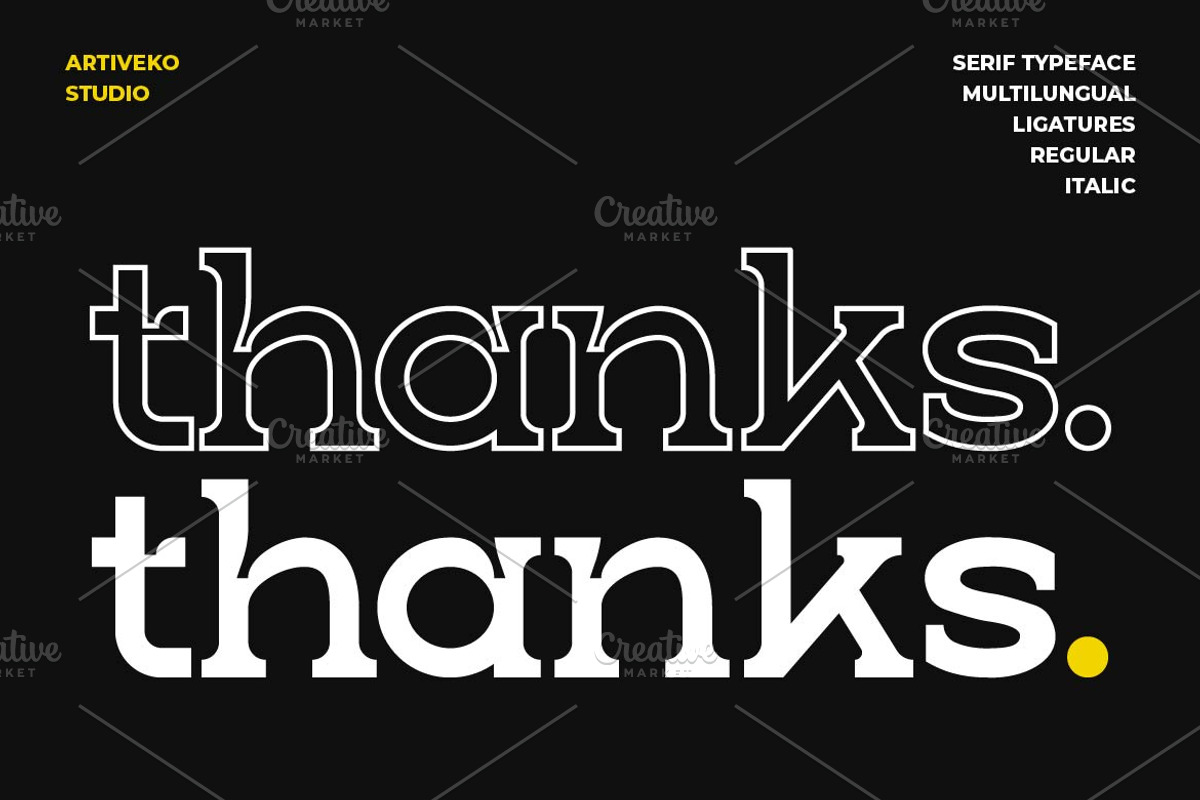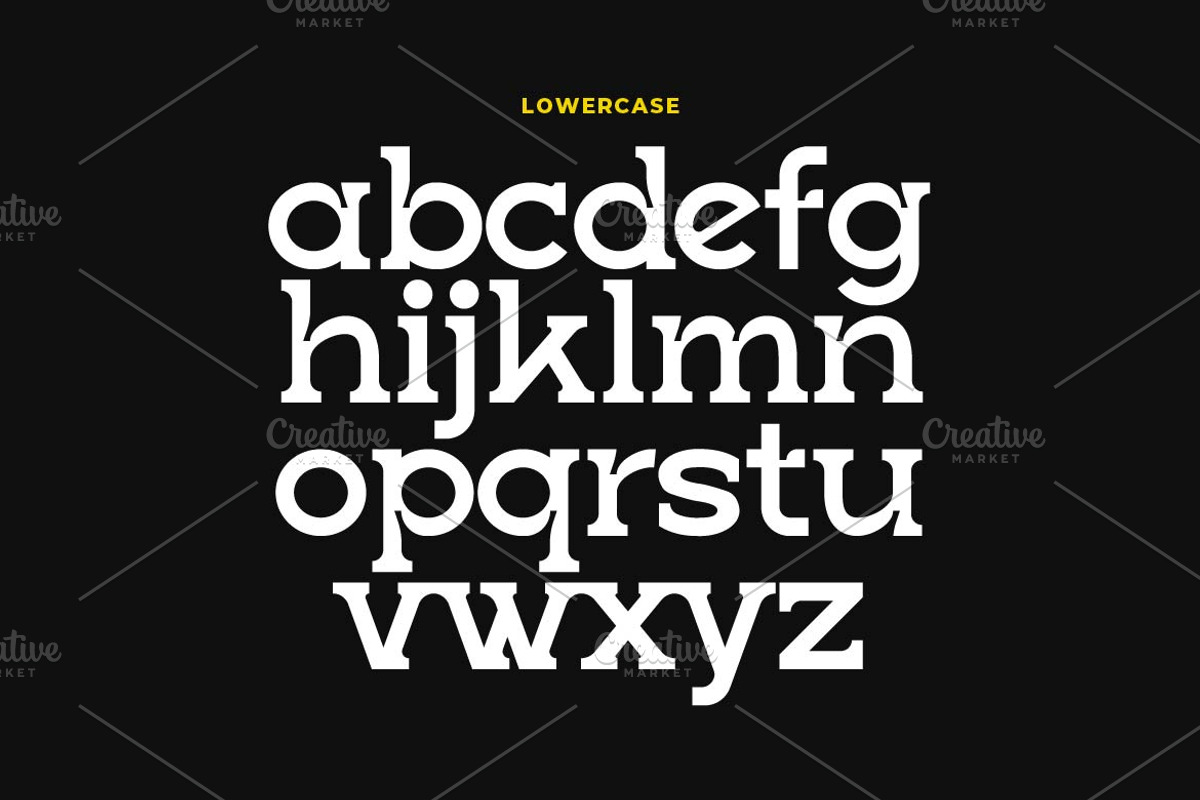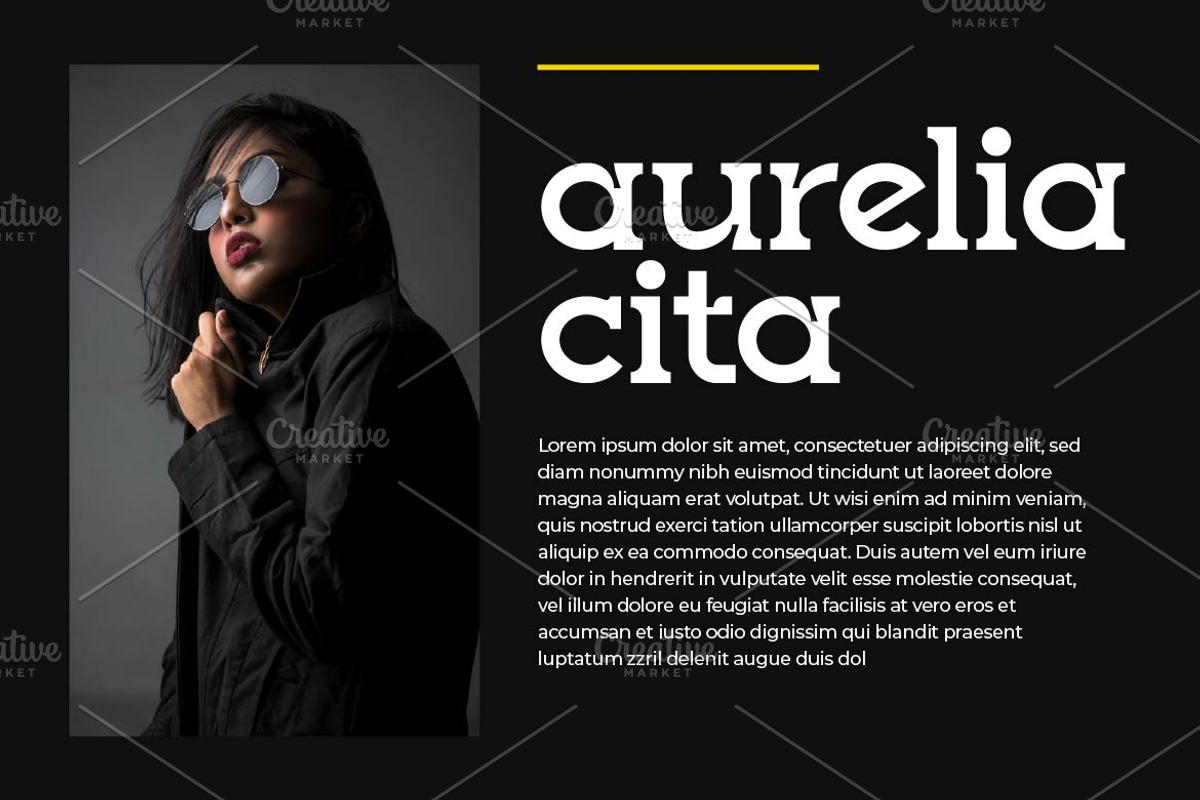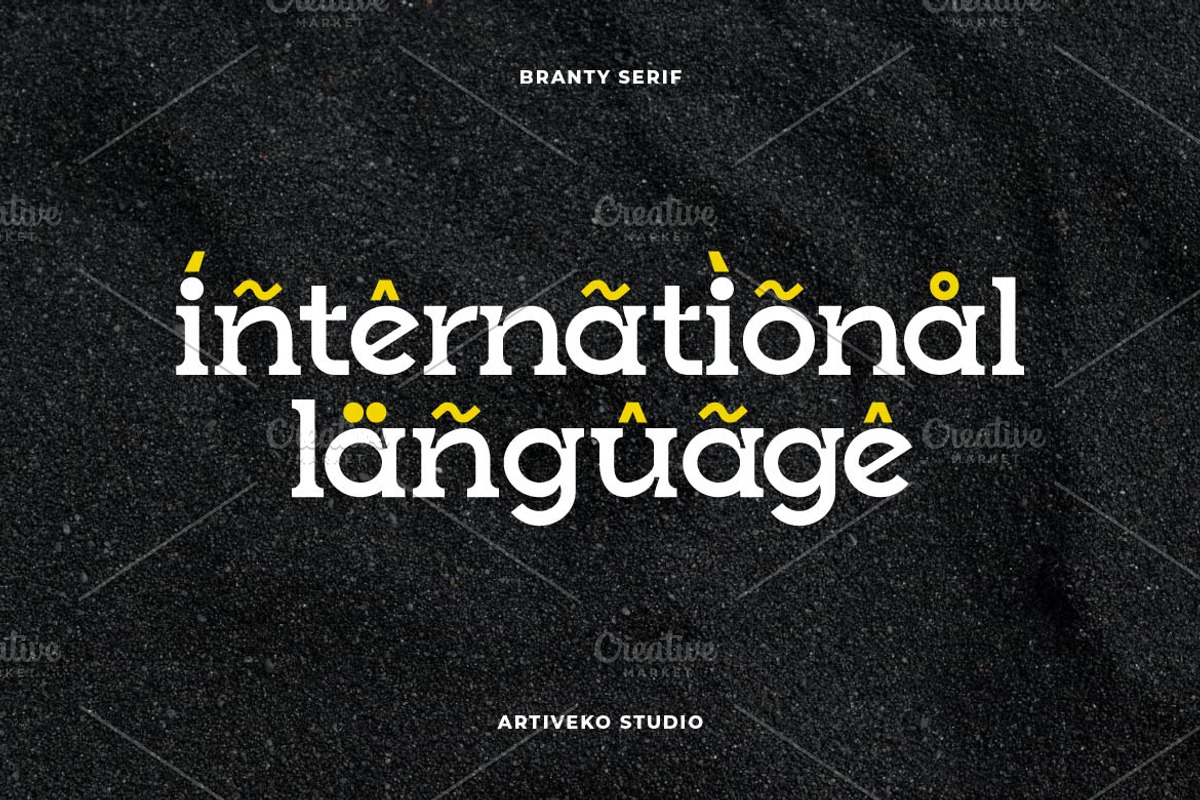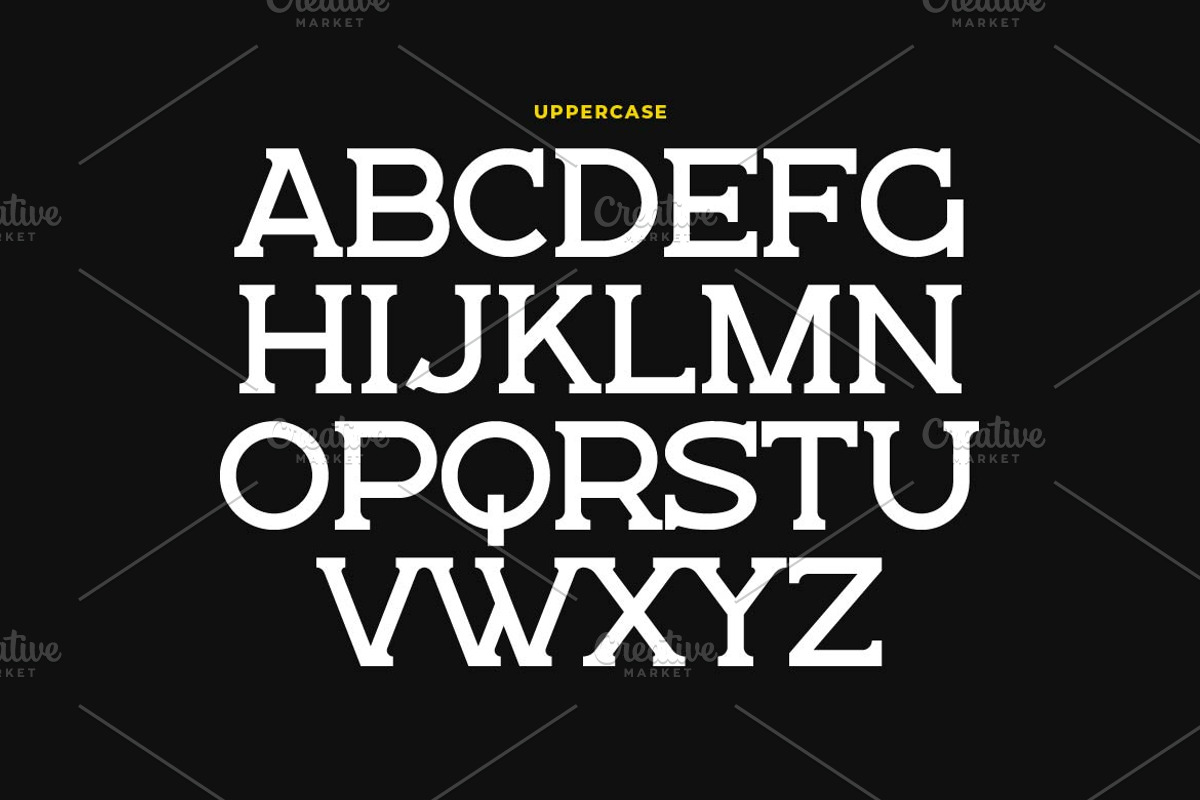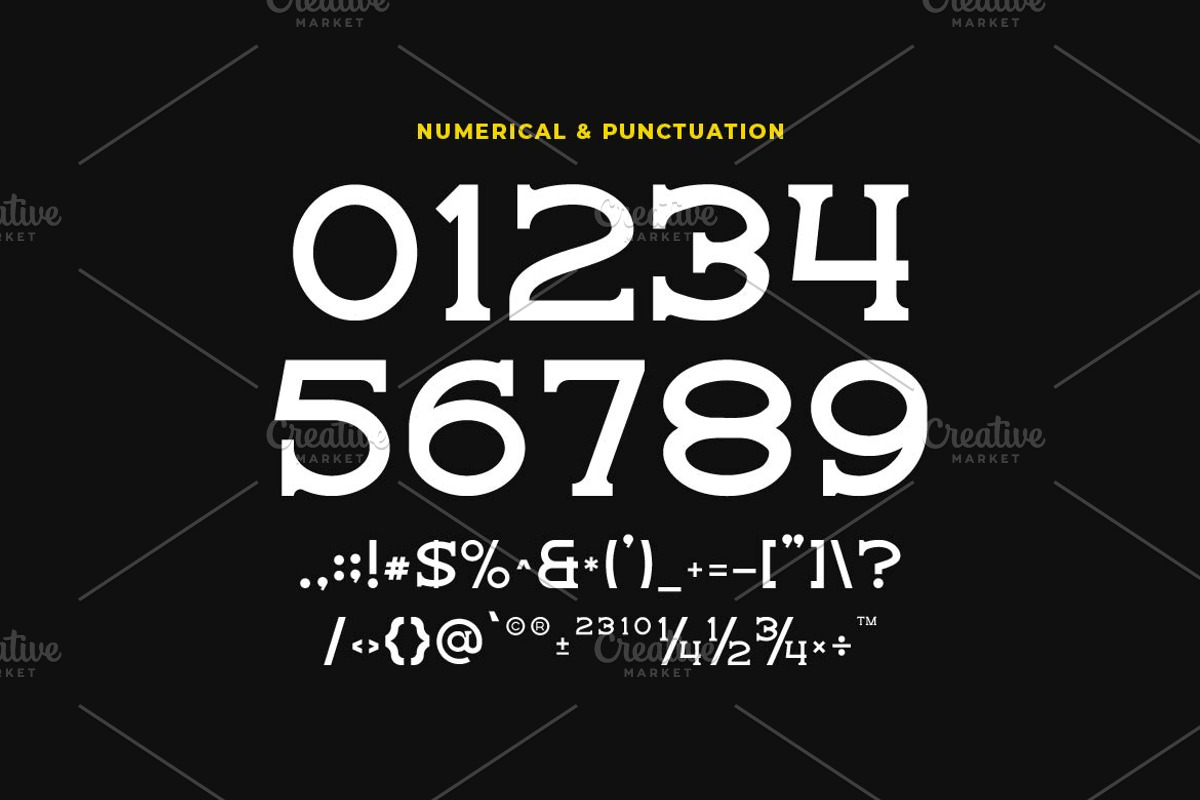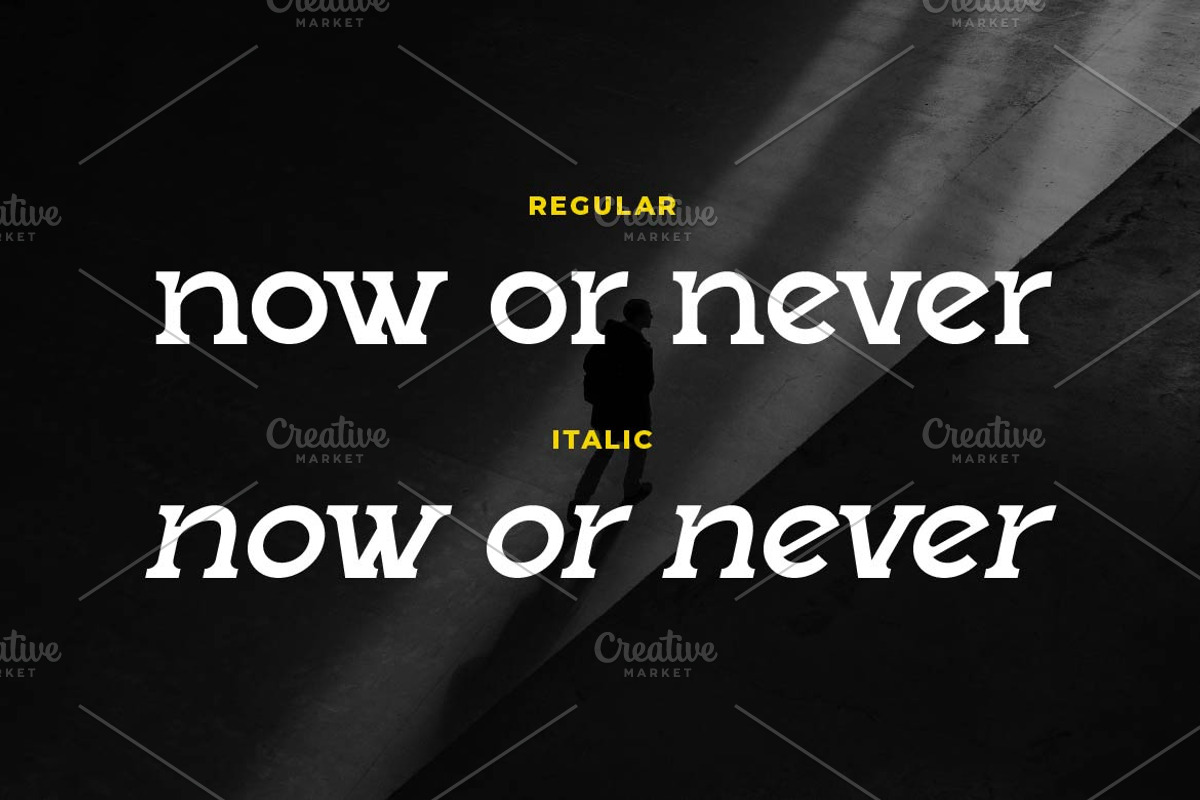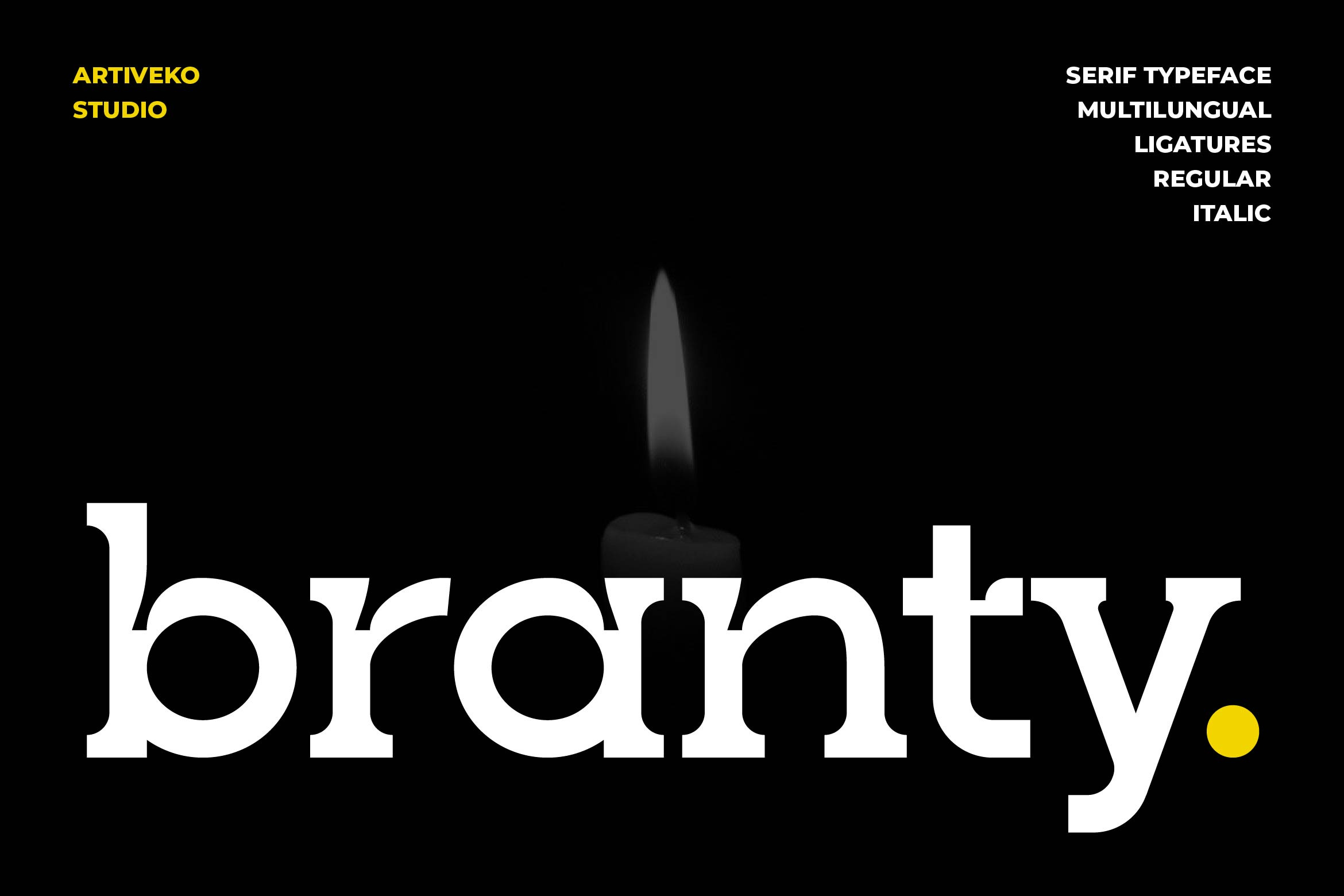
Branty Modern Serif Font
Branty is a modern serif typeface that blends timeless elegance with a fresh contemporary twist. Its sharp serifs, high contrast strokes, and refined letterforms make it a versatile choice for premium branding, editorial designs, and luxury packaging.